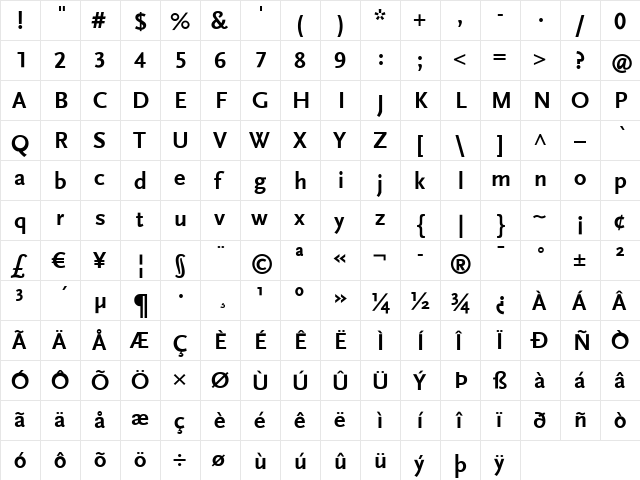
ScalaSansLF Bold
Design Context for ScalaSansLF Typeface
ScalaSansLF offers clean, dependable letterforms without strong stylistic allegiance, making it a practical choice for designers who need flexibility. Its bold stroke weight gives it real presence on the page.